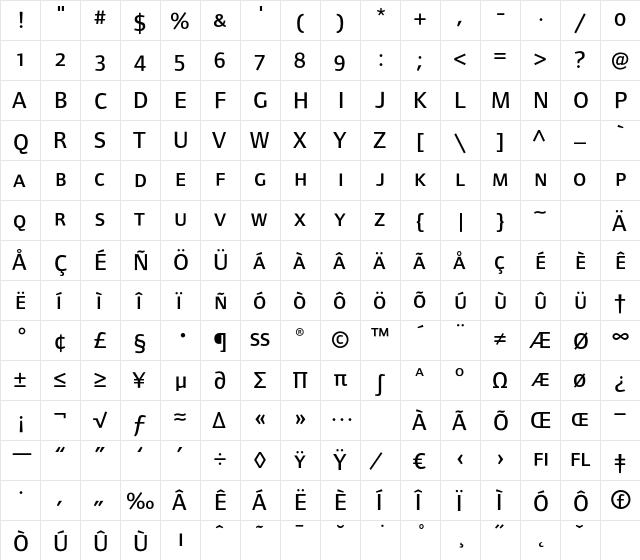
FoundryFormSans MediumSC
Design Context for FoundryFormSans Typeface
FoundryFormSans takes a measured approach to typography — its balanced proportions and neutral character make it a reliable workhorse for both digital and print work.